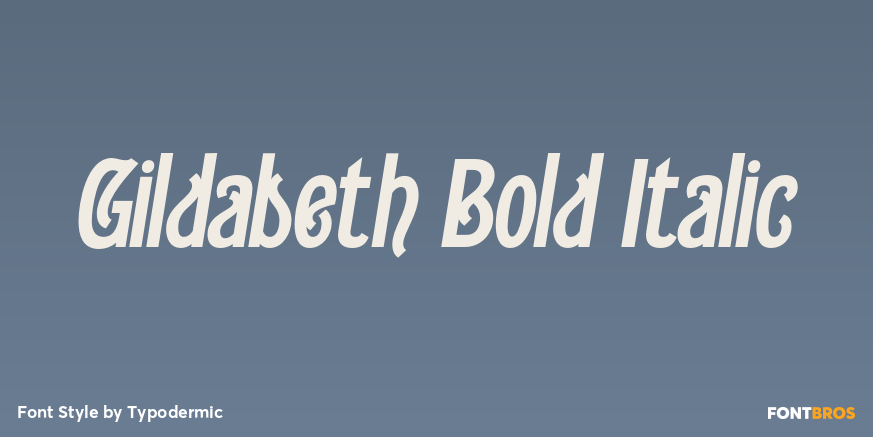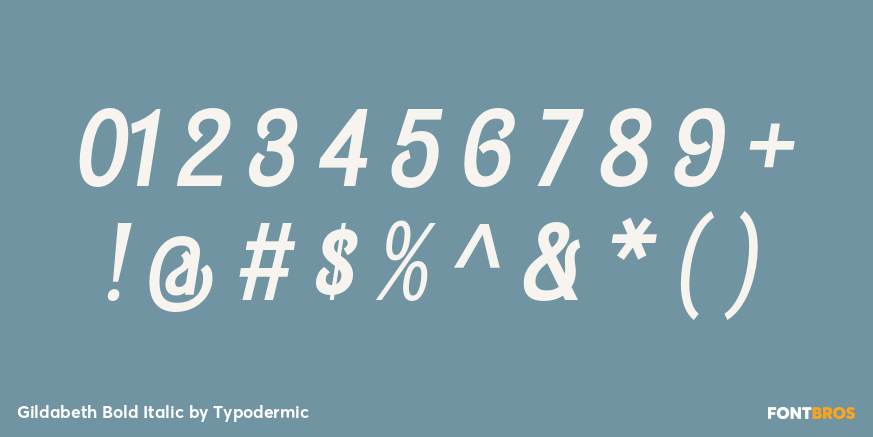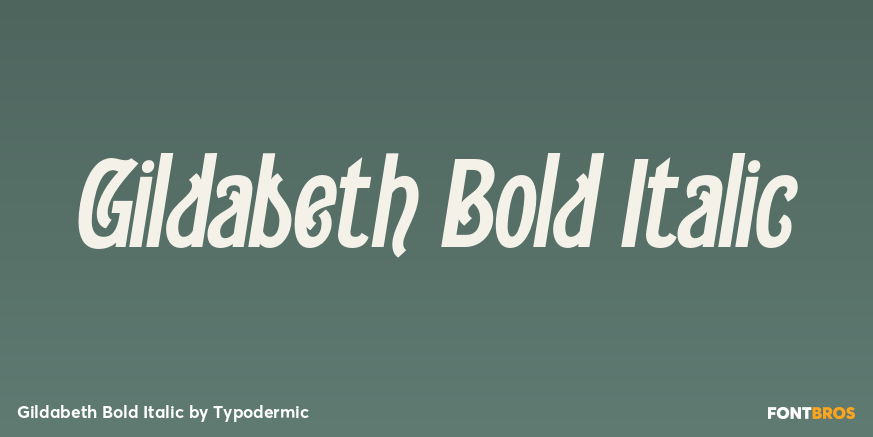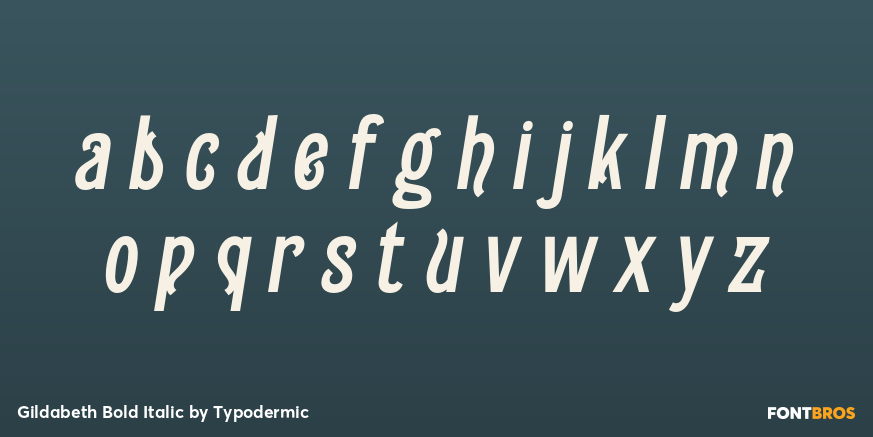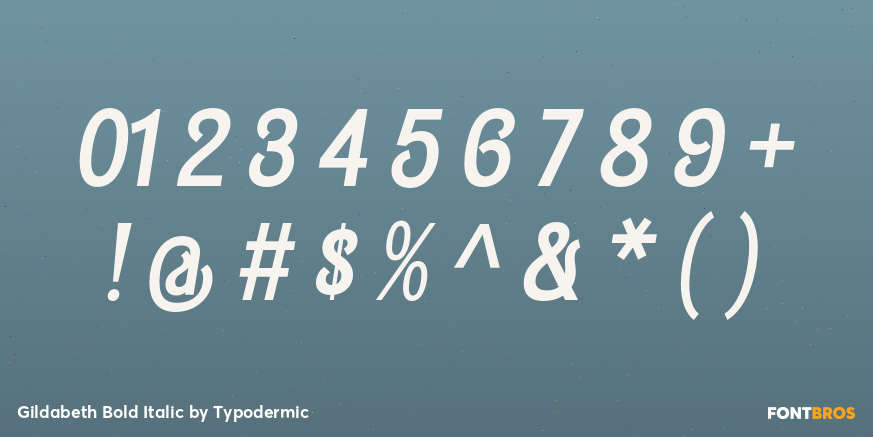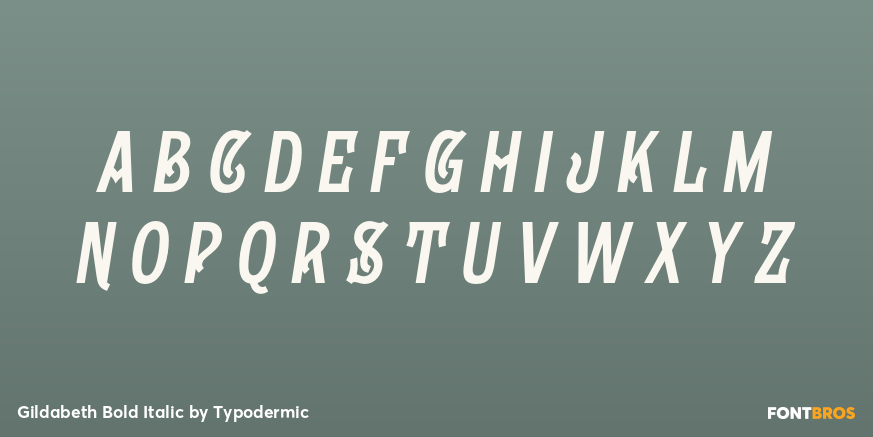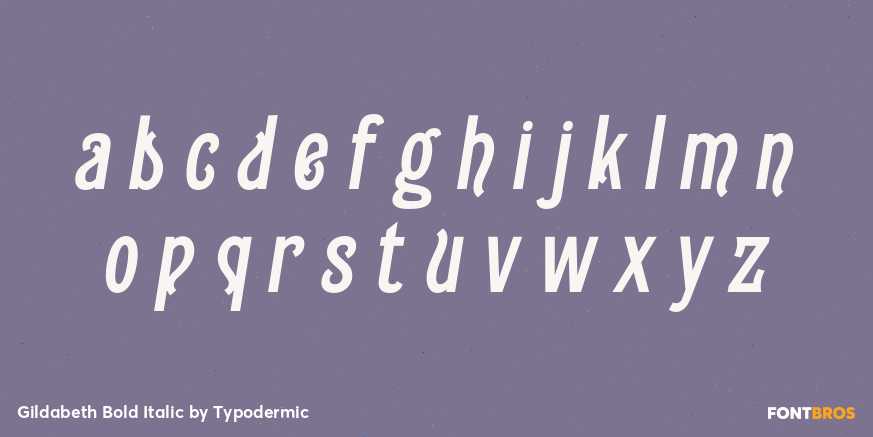
Gildabeth Bold Italic
Its narrow proportions, high contrast and peculiar curves give the lighter weights a romantic quality without turning them into conventional scripts or luxury Didones. That makes Gildabeth particularly useful for boutique salons and haircare brands. Shampoo, conditioner, treatment masks, styling products and fragrance lines can move from fine product names and scent variants to stronger campaign headlines, gift sets and retail displays. Salon identities can carry the same language through service menus, appointment cards and window lettering.
Bath-and-body products and decorative giftware extend that territory naturally. Hand creams, soaps, bath salts, scented candles, fragrance collections, cosmetic bags, tea tins and seasonal gift boxes often live among floral illustration, pattern and ornament. Thin and Light can sit delicately beside botanical imagery, while heavier weights provide enough presence for packaging fronts, collection names and shop displays.
Fashion brings out a sharper side. Mod-inspired clothing, patterned dresses, eyewear, accessories and colorful boutique collections suit Gildabeth’s combination of narrow geometry and exaggerated detail. Lighter styles bring elongated elegance to lookbooks and garment tags; heavier weights give collection names, shop windows and campaign typography considerably more graphic force.
Food and hospitality reveal its playful end. Ice-cream parlors, cake shops, dessert cafés, afternoon-tea rooms and whimsical bakeries can use Gildabeth for menu headings, flavor names, packaging and signs. In the heavier weights, those same unusual shapes become chunky enough for retro burger shops, milkshake menus, fry cartons and colorful diner graphics.
That change of temperament is one of Gildabeth’s most useful qualities. Many eccentric display faces give designers one spectacular voice; Gildabeth lets the same odd proportions whisper, speak or shout. A hand-cream label, salon menu, mod-fashion lookbook and burger-shop window can all draw from the same family without requiring the same degree of visual intensity.
Seven weights with matching italics let designers control the eccentricity rather than switch it off: delicate enough for a serum bottle, assertive enough for a salon window, sharp enough for a mod-fashion campaign and loud enough to shout over a basket of fries.